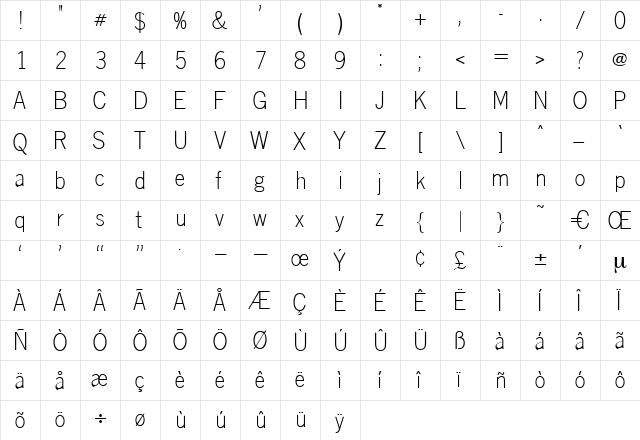
Selene Regular Font Preview
Selene Regular
Selene Regular Font Details
Design Context for Selene Typeface
Selene takes a measured approach to typography — its balanced proportions and neutral character make it a reliable workhorse for both digital and print work.